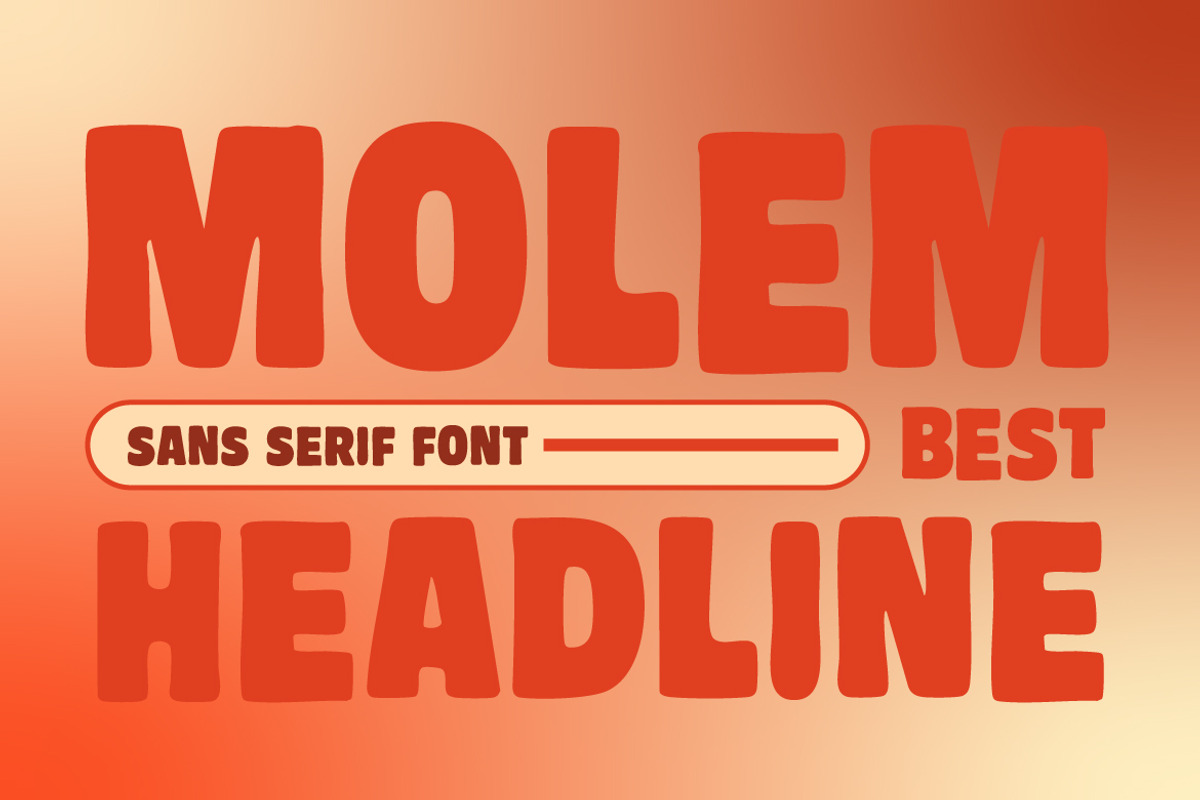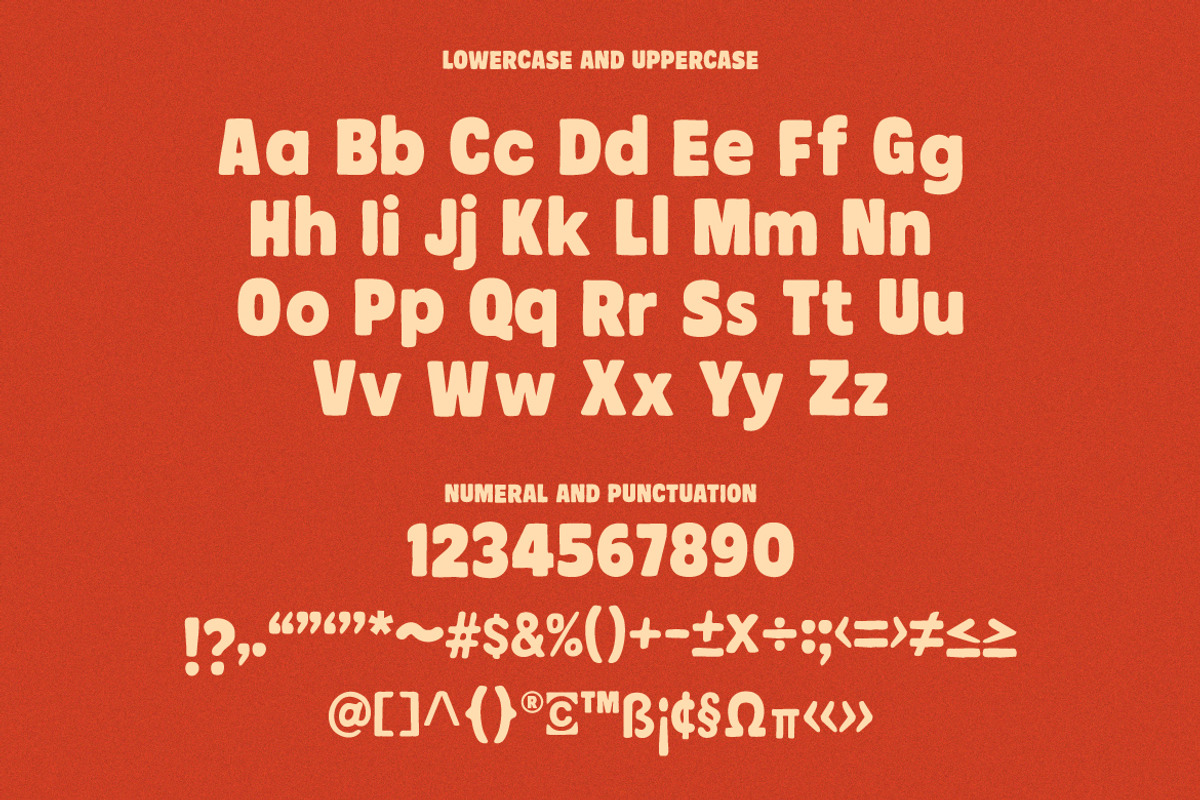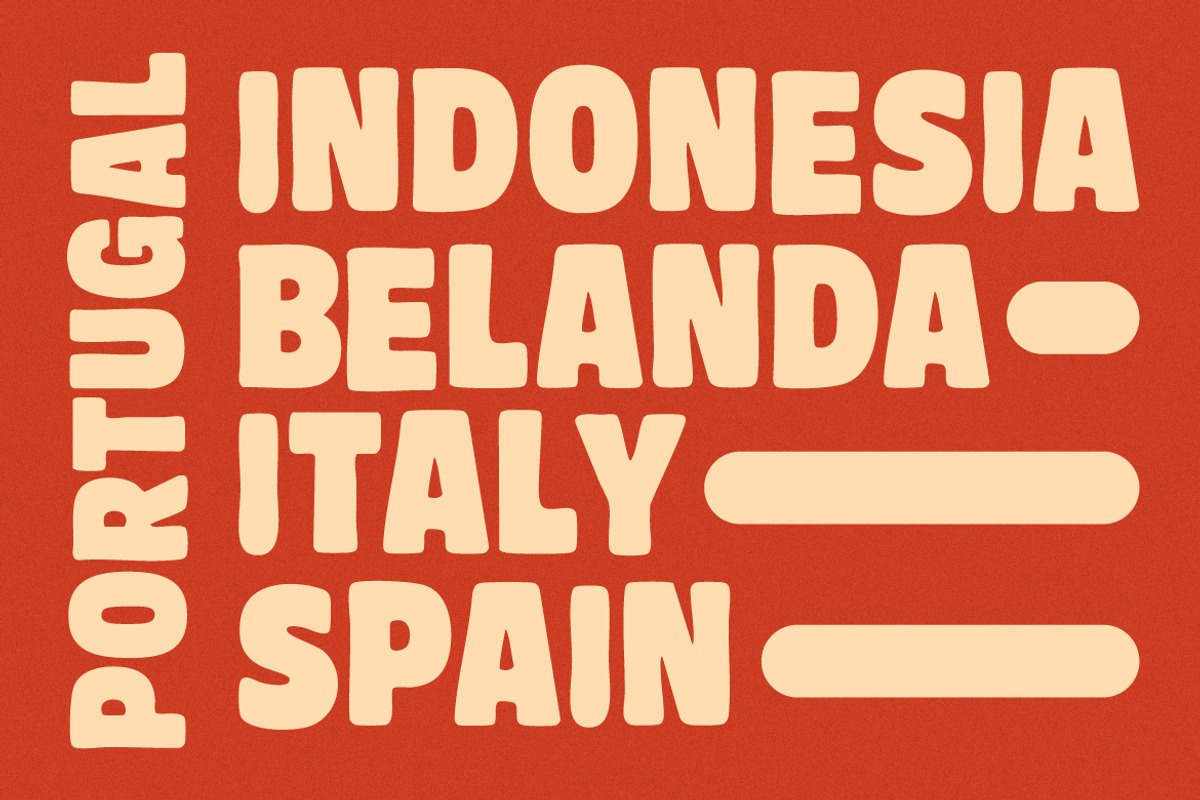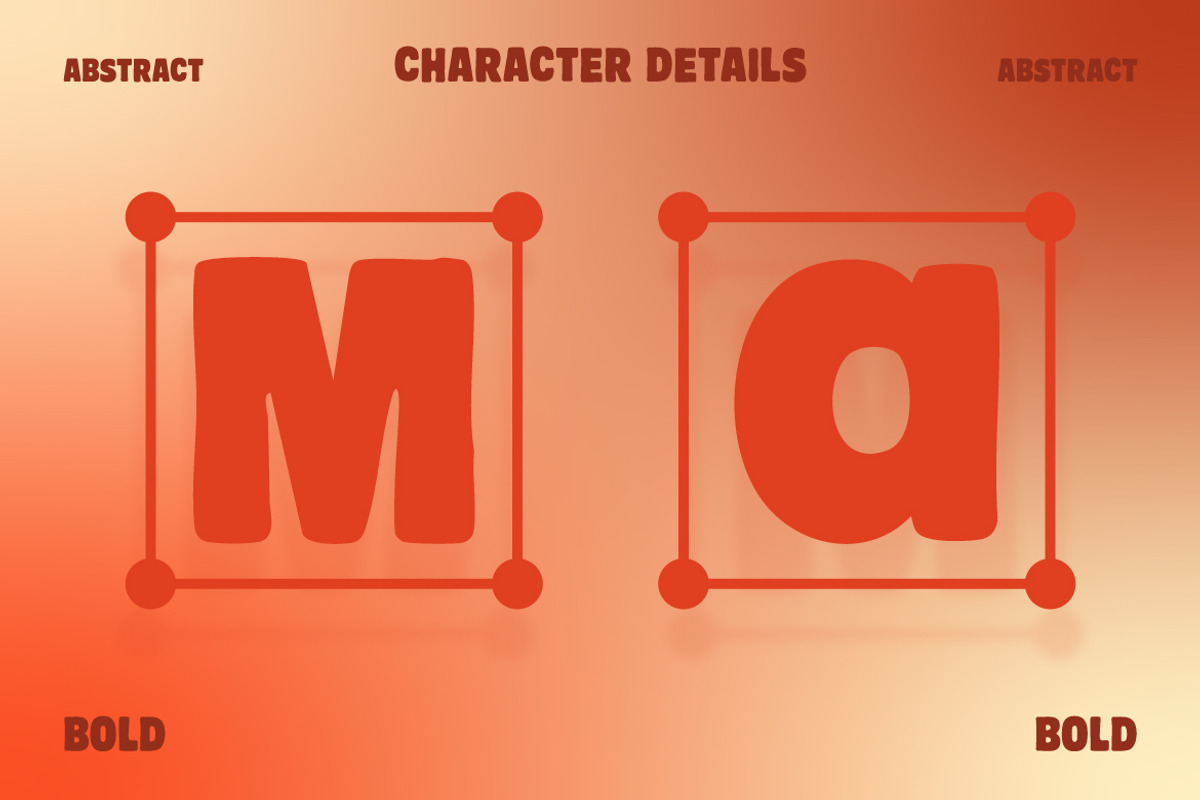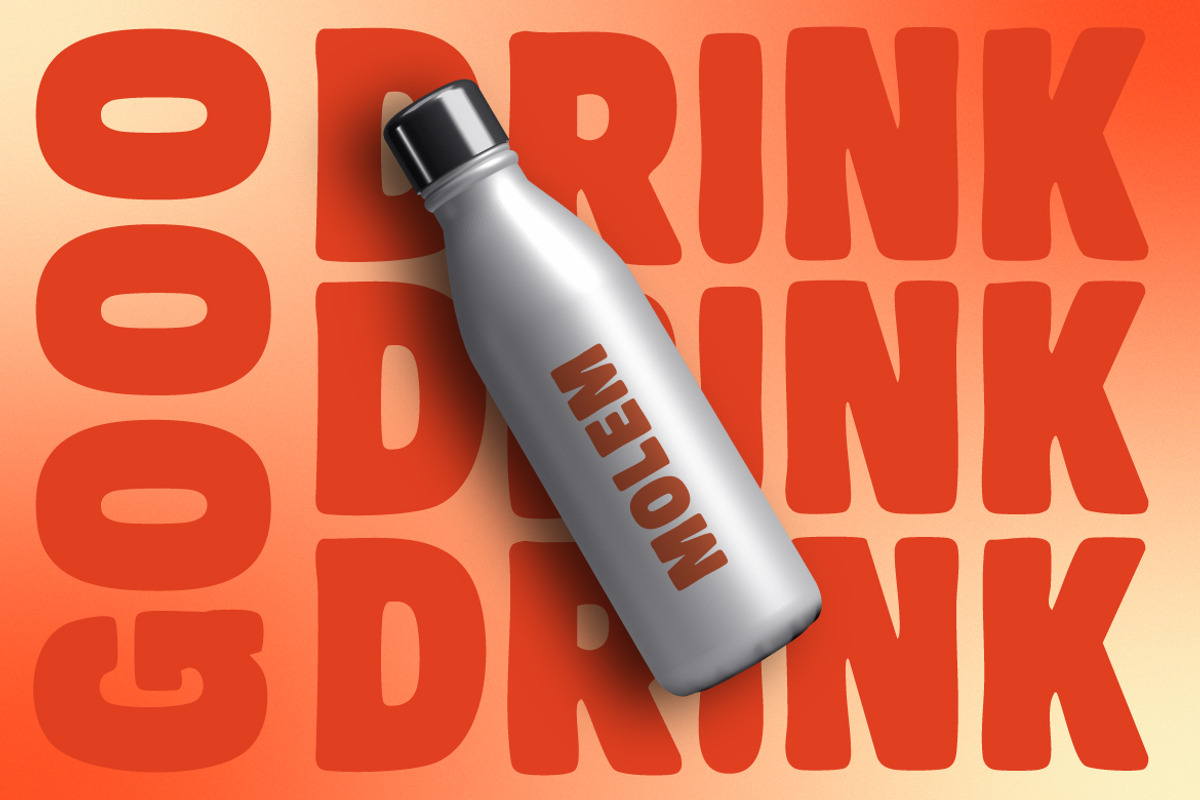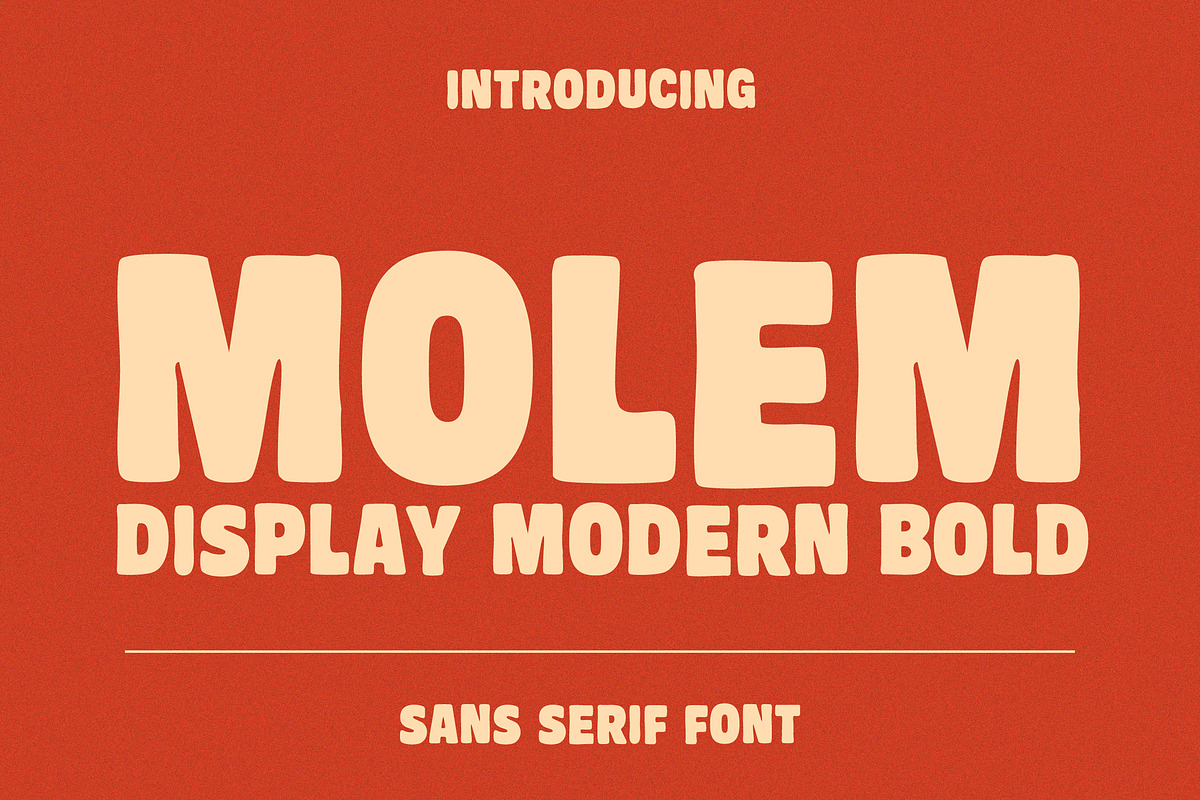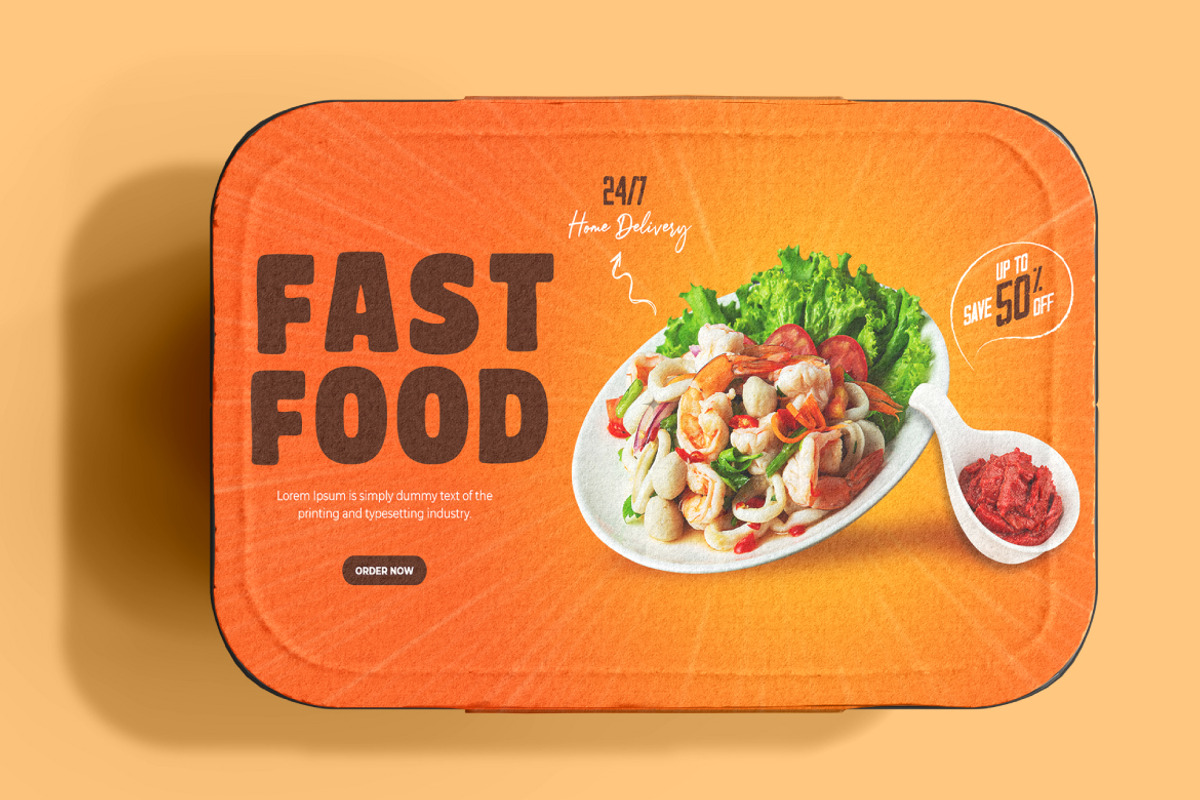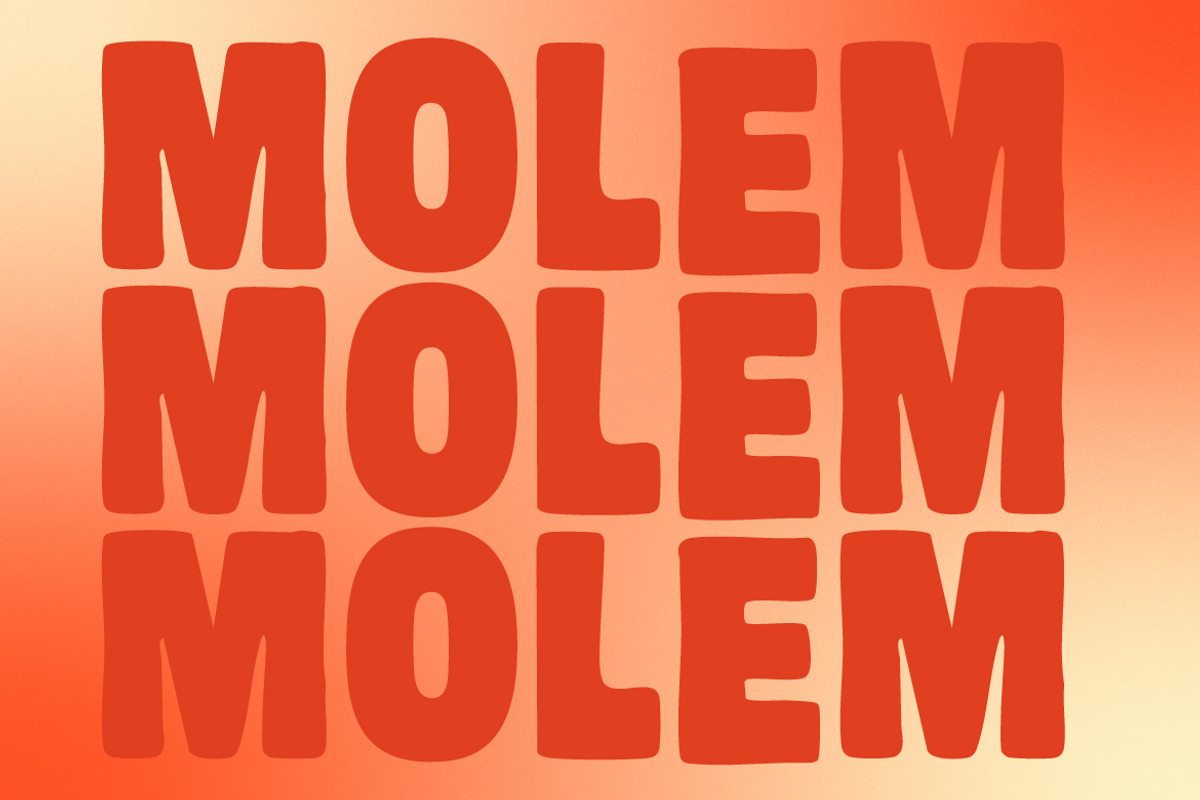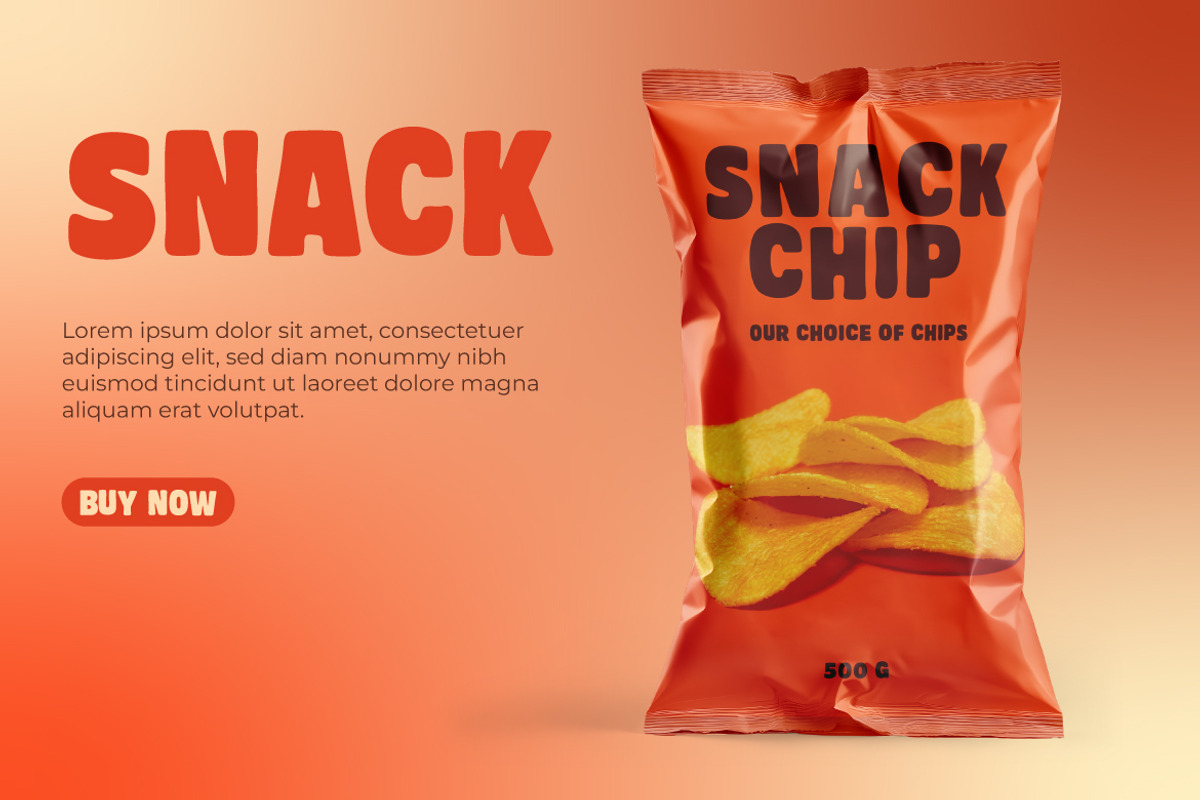
Molem – Bold Retro Display Sans Seri
Molem is a modern bold display sans-serif font with a fun and quirky personality. With chunky, slightly organic shapes, it brings a playful and eye-catching vibe to any design.
- Snack & beverage packaging
- Retro & modern posters
- Bold headlines
- Creative branding
- Merchandise, and more!
- Complete uppercase & lowercase
- Numerals & punctuation
- Symbols and multilingual support
- Bold, retro-modern letterforms
✨ Great for projects that need bold energy with a touch of nostalgic charm. 💡 Use Molem to add punch and personality to your visuals!